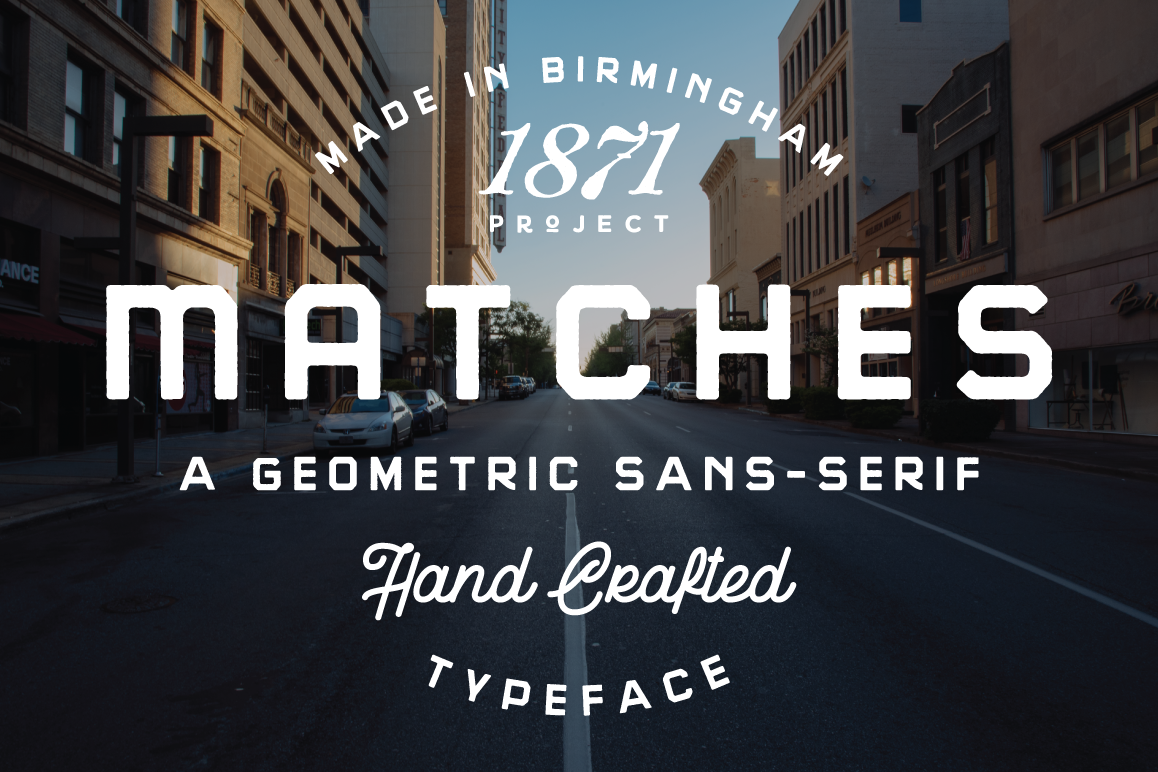
Created By 1871 Project
Matches
Matches is a brand new geometric hand-crafted sans serif typeface. Its inspired by vintage matchboxes and packaging. This font can stand on its own or be used as secondary type. It has a few alternates you can use by holding shift or using "caps-lock" It comes in 2 different weights and 4 different styles! The edges are rounded, the same effect that came from old printing techniques.
• 4 Different Styles
• 2 Different Weights
• Rounded Edges + A Few Alternates